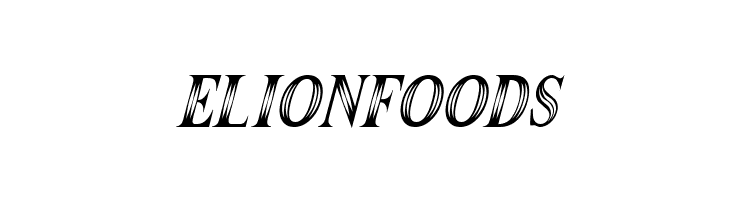
A bold, italic serif font with an expanded width and dynamic style.
A bold, italic, and condensed font with high contrast and tight spacing.
A bold, narrow serif font with high contrast and elegant vertical emphasis.
A high-contrast, italic serif font with dynamic and elegant strokes.
A bold, outlined serif font with a modern twist, perfect for eye-catching headlines.
( Fonts by Matthew Austin Petty - www.disturbed.com )
A playful and chaotic dingbat font with diverse hand-drawn illustrations.
( Fonts by Typearound )
A bold, distressed font resembling lipstick smudges, perfect for dramatic and playful designs.
A tall, narrow font with high contrast and modern elegance.
( Paul Lloyd Fonts )
A sleek, modern, light italic font with smooth curves and balanced spacing.